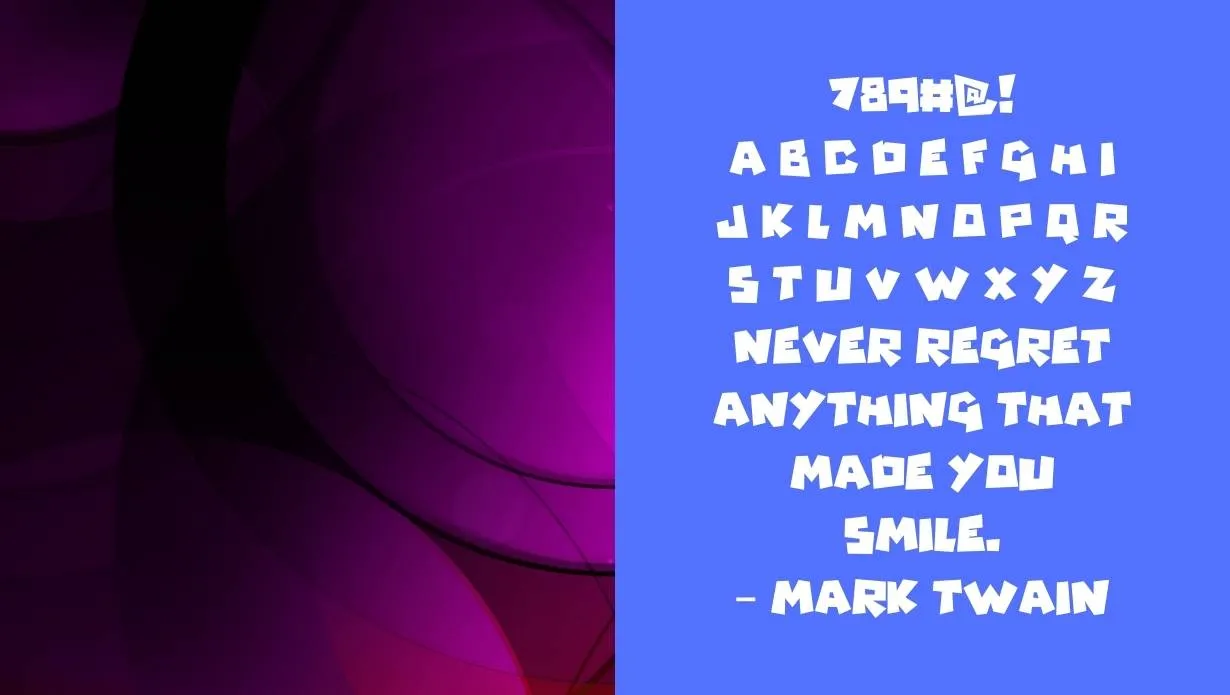
In this post, we introduce a new staggering and fascinating typeface named Monsterz Font. It was developed by Darrell Flood. It belongs to the fancy typeface. The best thing about this font is that it supports all international languages.
This tremendous typeface has a unique and stylish design. Its letters are very sharp and clear. This typeface supports all international languages.
| Name | Monsterz Font |
| Designer | Darrell Flood |